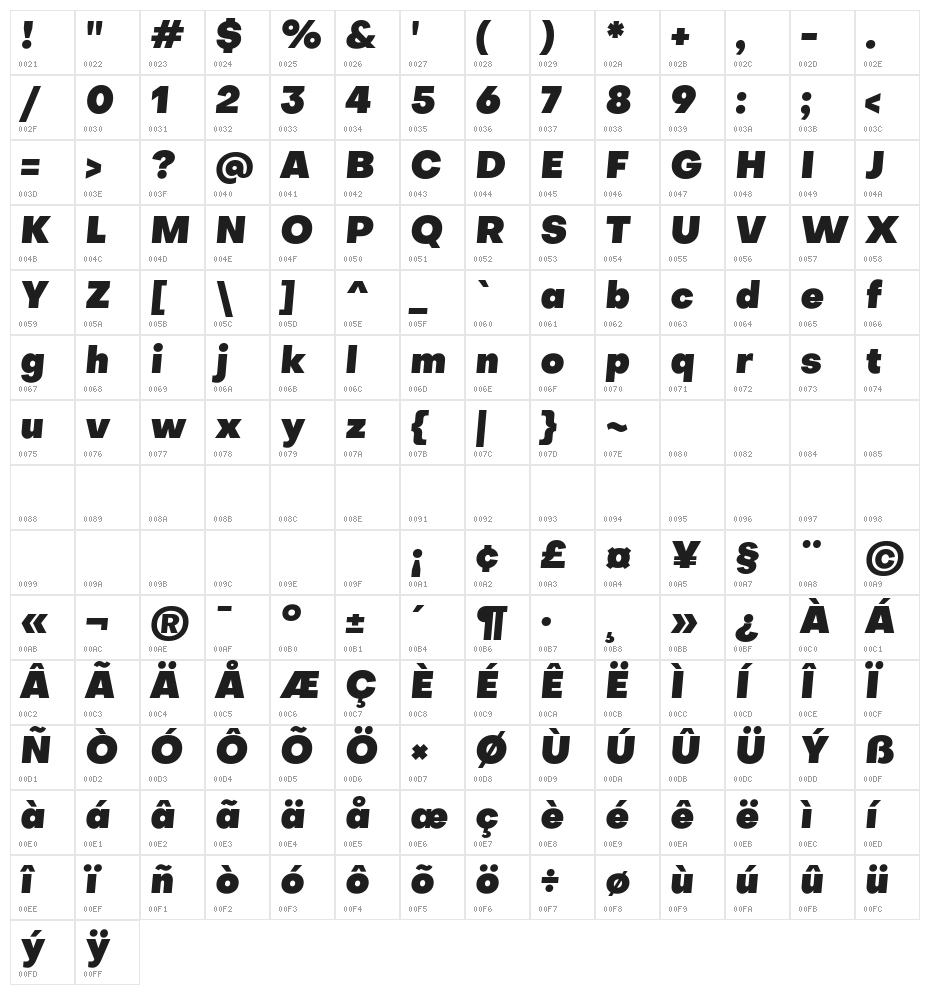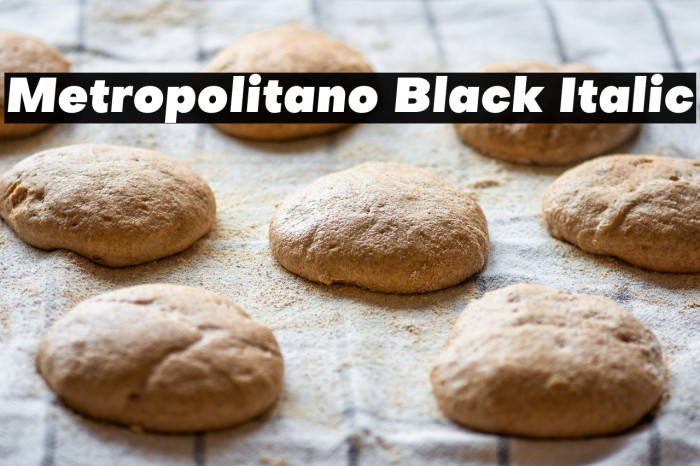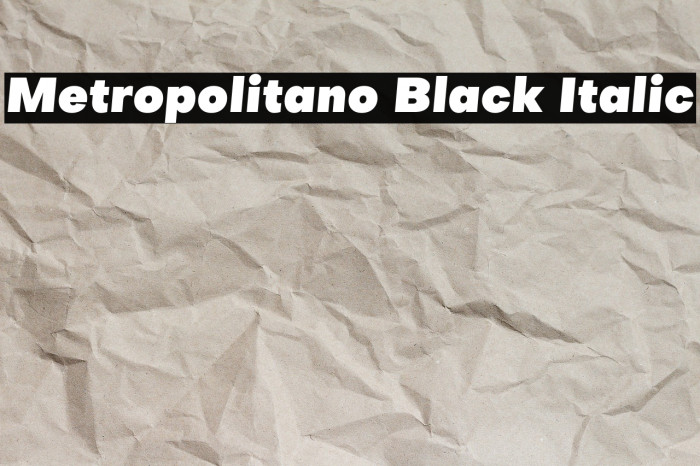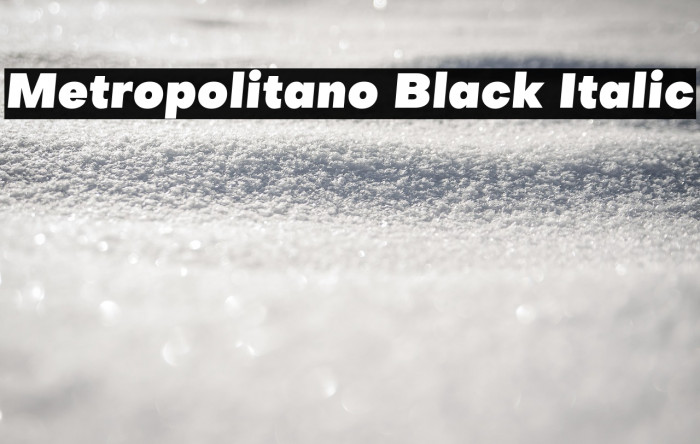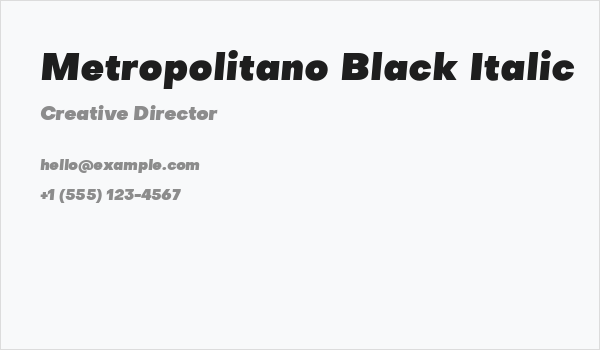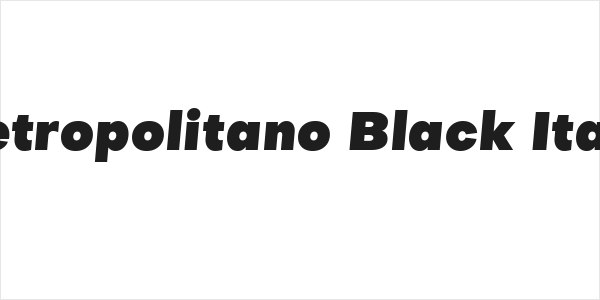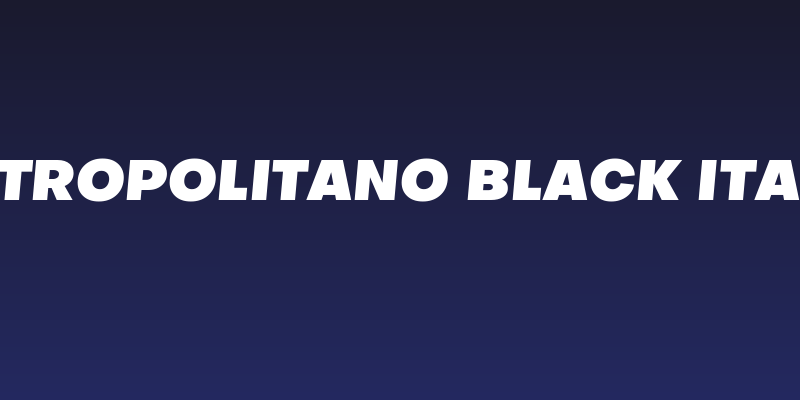
Metropolitano Black Italic Font
Metropolitano Black Italic Description
This font exhibits a bold and dynamic presence with its thick, italicized strokes, creating a sense of movement and urgency. The characters are robust and impactful, making them stand out prominently. The uppercase and lowercase letters maintain a consistent weight, contributing to a cohesive appearance. The numerals and special characters are equally bold, ensuring uniformity across all elements. The italic slant adds a modern touch, enhancing its visual appeal and making it suitable for attention-grabbing designs.
| Proposed Projects | Ideal for headlines, posters, branding materials, and any design requiring a strong, impactful typeface. |